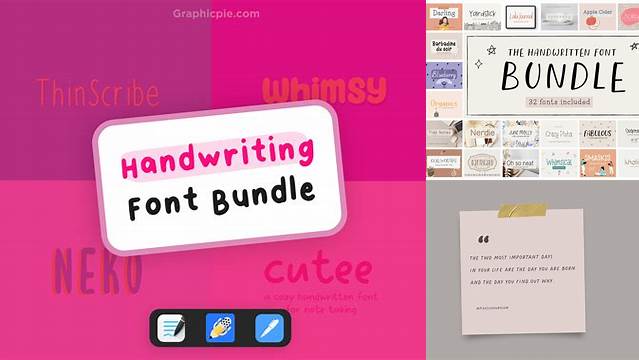
Notability Handwriting Fonts: A Complete Guide
Hey guys! Ever wanted to personalize your notes in Notability with your own handwriting style? Well, you're in the right place! In this comprehensive guide, we're diving deep into the world of handwriting fonts in Notability. We'll explore why they matter, how to use them, where to find the best ones, and even how to create your own. So, grab your stylus, and let's get started!
Why Handwriting Fonts Matter in Notability
Handwriting fonts in Notability can be a game-changer for your note-taking experience. They add a personal touch, making your notes feel more like your own and less like generic typed text. Think about it: how many times have you scrolled through pages of digital notes, only to have them all blur together? Using a handwriting font can help your notes stand out, making them easier to recall and review. Plus, let's be honest, it just looks cool. The unique character of a handwriting font reflects your personality and style, something that a standard font like Times New Roman simply can't do. Moreover, for students, handwriting fonts can mimic the look and feel of traditional pen-and-paper note-taking, which can improve retention and engagement. Studies have shown that the act of handwriting helps with memory encoding, and using a handwriting font can bring some of that benefit to digital note-taking. Beyond academics, professionals can benefit from handwriting fonts as well. Imagine presenting a project proposal with a handwritten font – it adds a level of authenticity and care that typed fonts often lack. For creative fields, like design or writing, handwriting fonts can be a natural fit, enhancing the overall aesthetic of your work. And let's not forget the sheer joy of using a font that looks just like your own handwriting! It's a subtle way to express yourself and make your digital workspace feel more personal and inviting. So, whether you're a student, a professional, or just someone who loves taking notes, handwriting fonts in Notability are definitely worth exploring. They can transform your note-taking from a mundane task into a creative and engaging experience. Now, let's dive into how you can actually use these fonts in Notability and where to find the best ones.
How to Use Handwriting Fonts in Notability
So, you're sold on the idea of handwriting fonts – awesome! But how do you actually use them in Notability? It's not as straightforward as selecting a font from a dropdown menu, unfortunately. Notability doesn't natively support custom font uploads in the traditional sense. What we're talking about here is more about creating the look of handwriting within the app. There are a few cool methods we can use to achieve this handwritten feel, which we'll explore in detail. The most common method involves using the Apple Pencil or a similar stylus to, well, actually write! Notability's handwriting recognition is pretty impressive, allowing you to jot down notes, sketch diagrams, and even annotate PDFs with the feel of pen on paper. The key here is to experiment with different pen settings within Notability. You can adjust the thickness, color, and style of your pen strokes to mimic the look of various handwriting styles. For example, a thicker pen with rounded edges can create a bold, flowing script, while a thinner pen with sharper edges can give a more precise, technical look. Another technique involves using Notability's text tool in conjunction with handwriting fonts you've found elsewhere. You can type out your notes in a word processor or graphic design program that does support custom fonts, then export that text as an image or PDF and import it into Notability. This method is a bit more roundabout, but it gives you a lot of control over the final look and feel of your notes. You could even create entire templates with pre-written text in your favorite handwriting fonts, then use those templates as a base for your note-taking. There are also some clever workarounds using the 'stickies' feature in Notability. You can create small sticky notes with handwritten text and then move them around your notes as needed. This is a great way to add emphasis or highlight key points in a handwritten style. Finally, keep an eye out for third-party apps that integrate with Notability and offer more advanced font options. While direct font uploading isn't currently a feature, the Notability team is always working on updates and improvements, so who knows what the future holds? In the meantime, these techniques will help you bring the charm of handwriting fonts to your Notability notes. Now, let's talk about where you can find some fantastic fonts to inspire your digital handwriting.
Where to Find the Best Handwriting Fonts
Okay, so you're ready to find some awesome handwriting fonts to use in your Notability projects. The good news is, the internet is bursting with options! The challenge, however, is sifting through them all to find the perfect fit for your style. Let's break down some of the best places to look, both free and paid, and discuss what to consider when making your selection. First off, let's talk about free font websites. There are tons of sites out there offering free fonts for personal use, and many of them have a dedicated handwriting font section. Websites like DaFont, FontSpace, and Google Fonts are excellent starting points. DaFont, in particular, has a massive collection of fonts, ranging from elegant scripts to quirky doodles. FontSpace is another great resource, with a clean interface and a wide variety of styles. Google Fonts is a fantastic option if you're looking for fonts that are not only free but also web-friendly, meaning they'll look good on any device. When browsing these sites, be sure to use the search filters to narrow down your options. You can often filter by style (e.g., script, cursive, handwritten), weight (e.g., bold, light), and even license type (e.g., free for personal use, free for commercial use). Always double-check the license before using a font in a project, especially if you plan to use it for commercial purposes. Now, let's move on to paid font options. If you're looking for something truly unique and high-quality, it's worth considering investing in a premium font. Sites like MyFonts, Creative Market, and Adobe Fonts offer a vast selection of professionally designed fonts, including many beautiful handwriting fonts. The advantage of paid fonts is that they often come with more features, such as multiple weights, stylistic alternates, and extended character sets. They're also typically better-tested and more reliable than free fonts. Creative Market is a particularly good place to find fonts from independent designers, and you can often find bundles and deals that offer great value. Adobe Fonts is included with an Adobe Creative Cloud subscription, so if you're already using Photoshop or Illustrator, it's definitely worth exploring. When choosing a handwriting font, think about the overall tone and style you want to convey. Are you going for a playful, casual look, or something more elegant and formal? Consider the readability of the font as well – while a super-stylized font might look cool, it's not much use if it's difficult to read. Finally, don't be afraid to experiment! Try out a few different fonts and see what works best for you. You might even want to create a collection of favorite fonts that you can use for different types of projects. Now that you know where to find fonts, let's talk about how you can actually create your own.
Creating Your Own Handwriting Font
Alright, guys, let's get to the really cool part: creating your own handwriting font! Imagine having a font that's exactly like your handwriting – how awesome would that be? It's a bit of a process, but the results are totally worth it. There are several ways you can go about this, from using online tools to dedicated font creation software. Let's explore some of the most popular methods and what you'll need to get started. One of the easiest ways to create a handwriting font is to use an online font generator. There are several websites that offer this service, such as Calligraphr, FontSelf, and MyScriptFont. These tools typically work by providing you with a template – a PDF or image file with a grid of boxes, each representing a different character. You then print out the template and fill in the boxes with your handwriting, using a pen or marker. Once you've filled in all the characters, you scan the template back into your computer and upload it to the website. The font generator then processes your handwriting and creates a font file that you can download and install. The beauty of these online tools is that they're relatively easy to use and don't require any special software. However, the results can sometimes be a bit rough around the edges, especially if your handwriting isn't perfectly consistent. For more control over the final result, you might want to consider using dedicated font creation software. Programs like FontLab Studio, Glyphs, and FontForge offer a much wider range of features and tools for creating high-quality fonts. These programs allow you to draw each character individually, adjust the spacing and kerning, and even add advanced features like ligatures and stylistic alternates. Font creation software can be a bit more challenging to learn, but the investment is worth it if you're serious about creating professional-looking handwriting fonts. There are tons of tutorials and resources available online to help you get started, so don't be intimidated! No matter which method you choose, there are a few key tips to keep in mind when creating your handwriting font. First, consistency is key. Try to write each character in a consistent style and size, so that the font looks uniform and balanced. Pay attention to the spacing between letters and words, as this can greatly affect the readability of your font. It's also a good idea to test your font frequently as you're creating it. Type out some sample text in different sizes and weights to see how it looks. You might need to make adjustments to certain characters or spacing to achieve the desired effect. Finally, don't be afraid to experiment and have fun! Creating your own handwriting font is a creative process, so embrace it and let your personality shine through. Now that you've got your font, let's talk about how you can use it to take your Notability notes to the next level.
Tips for Using Handwriting Fonts in Notability Effectively
Okay, you've got your handwriting font, and you're ready to unleash it on your Notability notes. That's fantastic! But before you go wild, let's talk about some tips and tricks for using these fonts effectively. The goal here isn't just to make your notes look pretty (though that's definitely a bonus!), but to enhance their clarity and usefulness. First and foremost, readability is key. While a fancy, highly stylized handwriting font might look cool, it's not going to do you much good if you can't easily read it. Choose fonts that are clear and legible, even at smaller sizes. Avoid fonts with overly intricate details or excessive flourishes, as these can become distracting and make your notes harder to scan. Consider using different handwriting fonts for different purposes. For example, you might use a bolder, more prominent font for headings and subheadings, and a simpler, more streamlined font for body text. This can help to create visual hierarchy and make your notes easier to navigate. Color can also be a powerful tool for enhancing readability. Experiment with different colors for your fonts to see what works best for you. Dark fonts on a light background are generally the easiest to read, but don't be afraid to use color to highlight key points or add visual interest. Spacing is another crucial factor to consider. Make sure there's enough space between letters, words, and lines of text to prevent your notes from feeling cramped and cluttered. Adjusting the line height and letter spacing in your text editor can make a big difference in readability. Don't forget about the overall layout of your notes. Use headings, subheadings, bullet points, and other formatting elements to break up large blocks of text and make your notes easier to digest. Visual cues like arrows, underlines, and boxes can also help to draw attention to important information. One of the great things about using handwriting fonts in Notability is that they can help to mimic the look and feel of traditional pen-and-paper note-taking. This can be especially beneficial if you're trying to transition from physical notebooks to digital note-taking. Experiment with different pen styles and colors to find a combination that feels natural and comfortable for you. Finally, remember that the best way to use handwriting fonts effectively is to experiment and find what works best for you. There's no one-size-fits-all approach, so don't be afraid to try new things and develop your own unique style. Now, let's wrap things up with a few final thoughts and resources.
Conclusion: Making the Most of Handwriting Fonts in Notability
Alright, guys, we've covered a ton of ground in this guide to handwriting fonts in Notability! From understanding why they matter to finding and creating your own, you're now equipped to personalize your notes like never before. Remember, the key takeaway here is that handwriting fonts can add a unique, personal touch to your digital notes, making them more engaging, memorable, and, well, you. They bridge the gap between the digital world and the tactile experience of pen and paper, which can be especially helpful for those who learn best by writing. Whether you're a student, a professional, or just a note-taking enthusiast, incorporating handwriting fonts into your Notability workflow can significantly enhance your experience. Think about the impact of using a font that mirrors your own handwriting – it's like signing your work, adding a layer of authenticity and ownership. But it's not just about aesthetics. As we discussed, using different fonts for headings, subheadings, and body text can create a clear visual hierarchy, making your notes easier to scan and understand. And the strategic use of color can further emphasize key points and improve overall readability. Creating your own handwriting font, while a bit of a project, is an incredibly rewarding endeavor. It's a way to truly personalize your digital space and create a font that's uniquely yours. Whether you opt for an online font generator or dive into dedicated font creation software, the result is a font that reflects your individual style and personality. As you experiment with handwriting fonts in Notability, remember to prioritize readability. A beautiful font is useless if it's difficult to decipher. Choose fonts that are clear and legible, even at smaller sizes, and pay attention to spacing and layout. Ultimately, the best way to make the most of handwriting fonts in Notability is to play around, experiment, and find what works best for you. Don't be afraid to try new things and develop your own unique style. And who knows? You might even inspire others to personalize their notes as well! So go forth, explore the world of handwriting fonts, and transform your Notability notes into works of art. Happy note-taking!